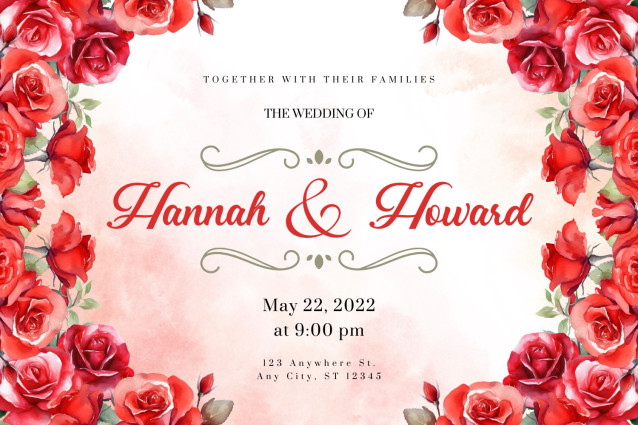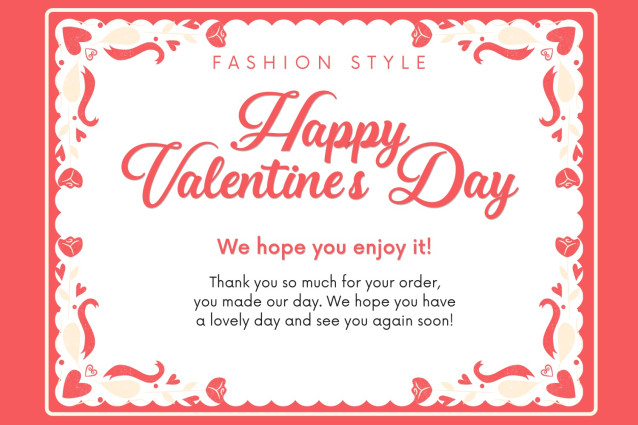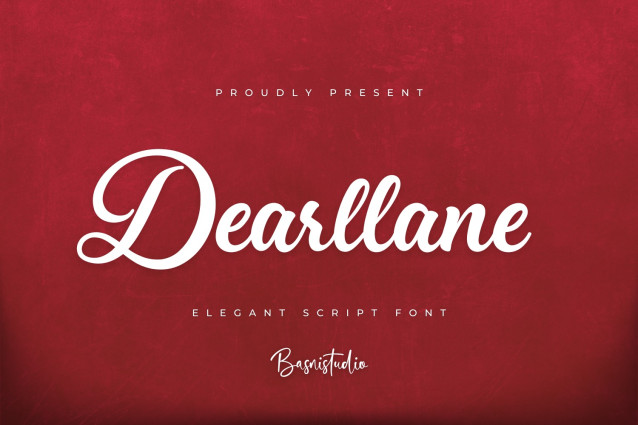
Dearllane Script Font
Dearllane Script Font is a Elegant Script Font that adds a elegant, versatile touch to everything from branding and social media to invitations and packaging.